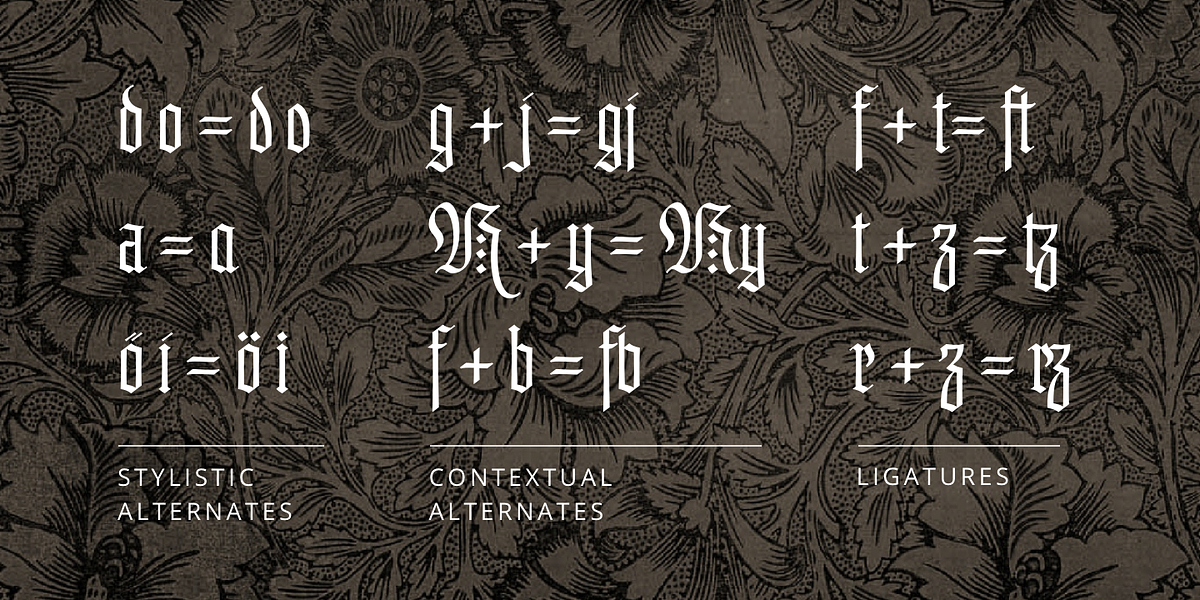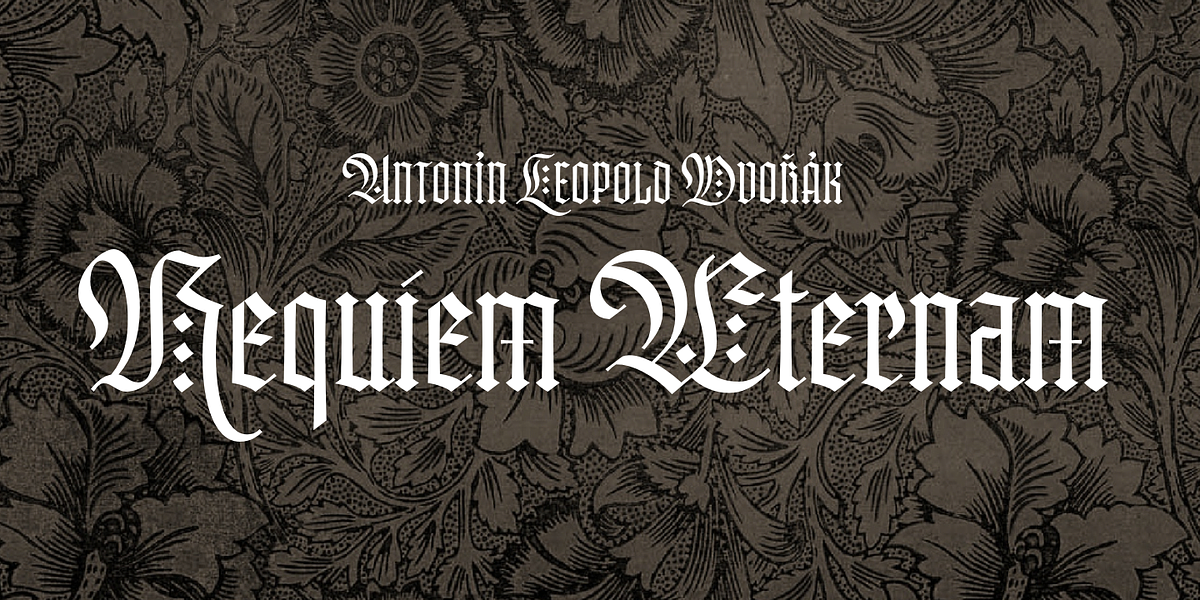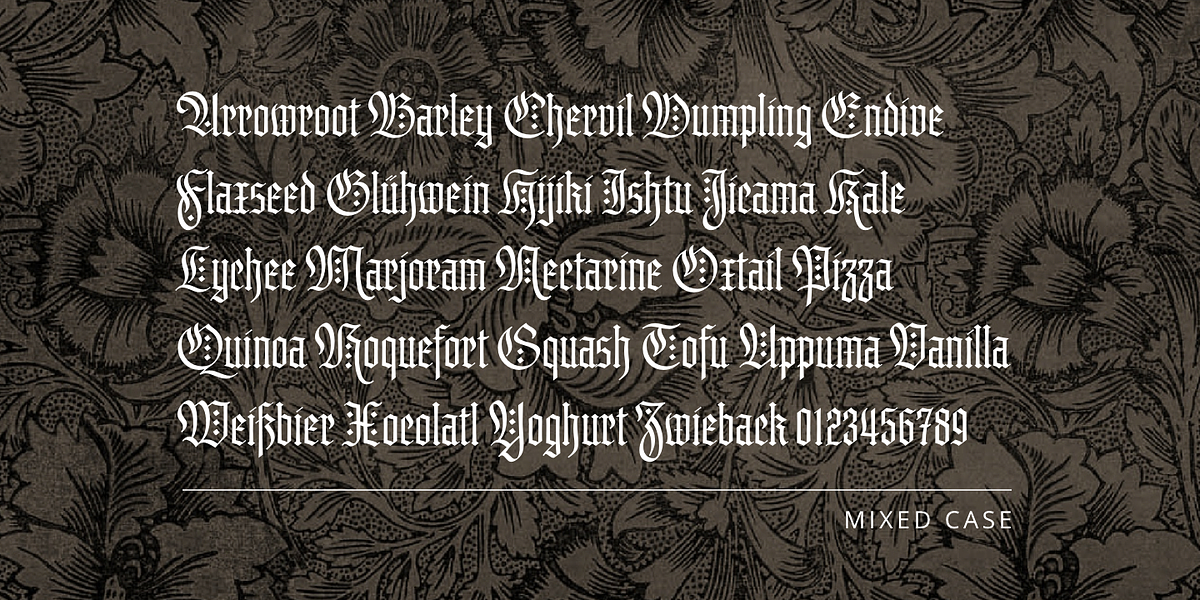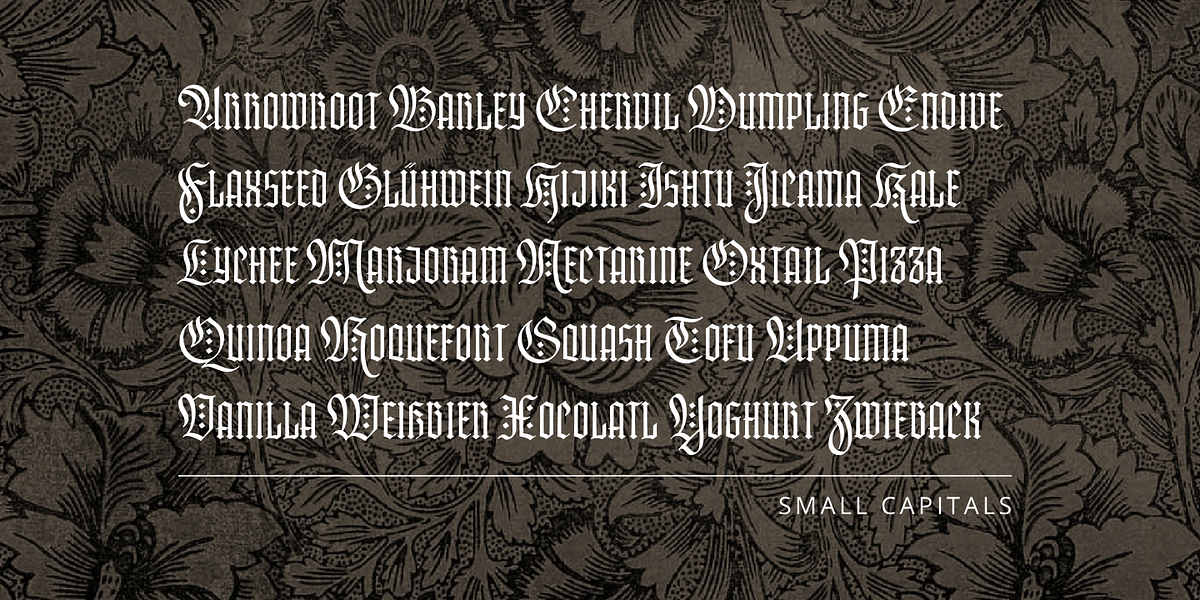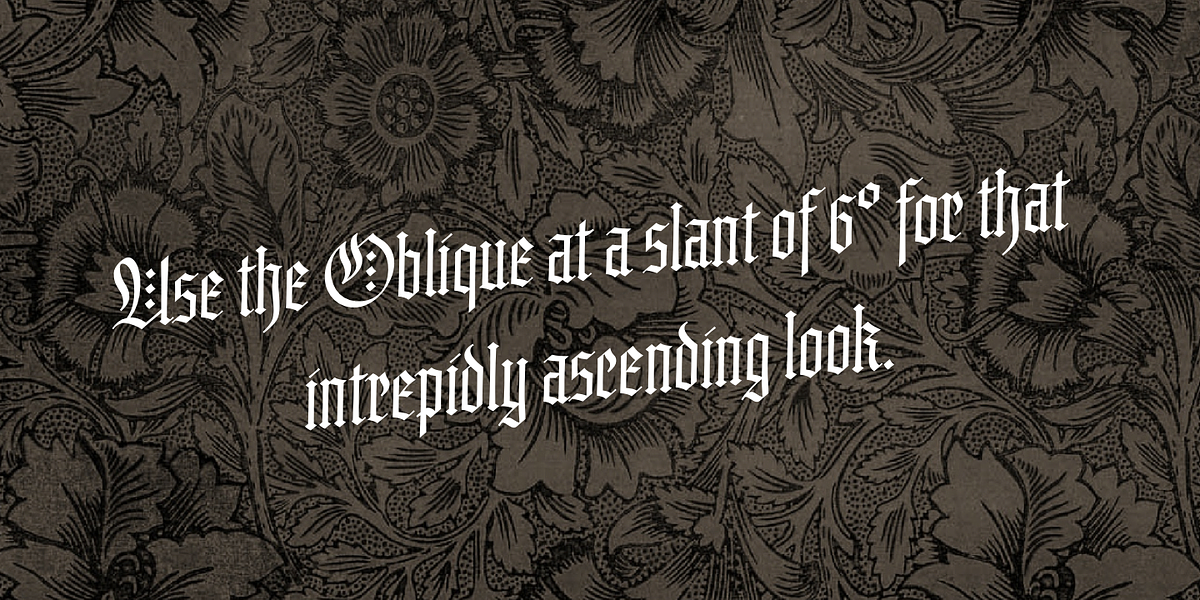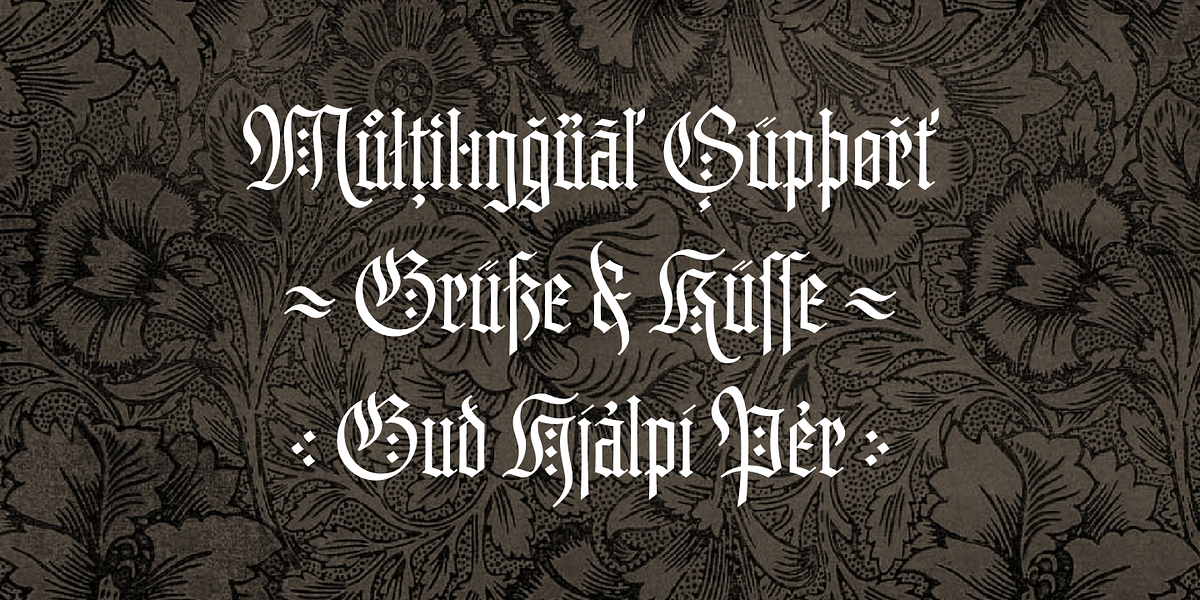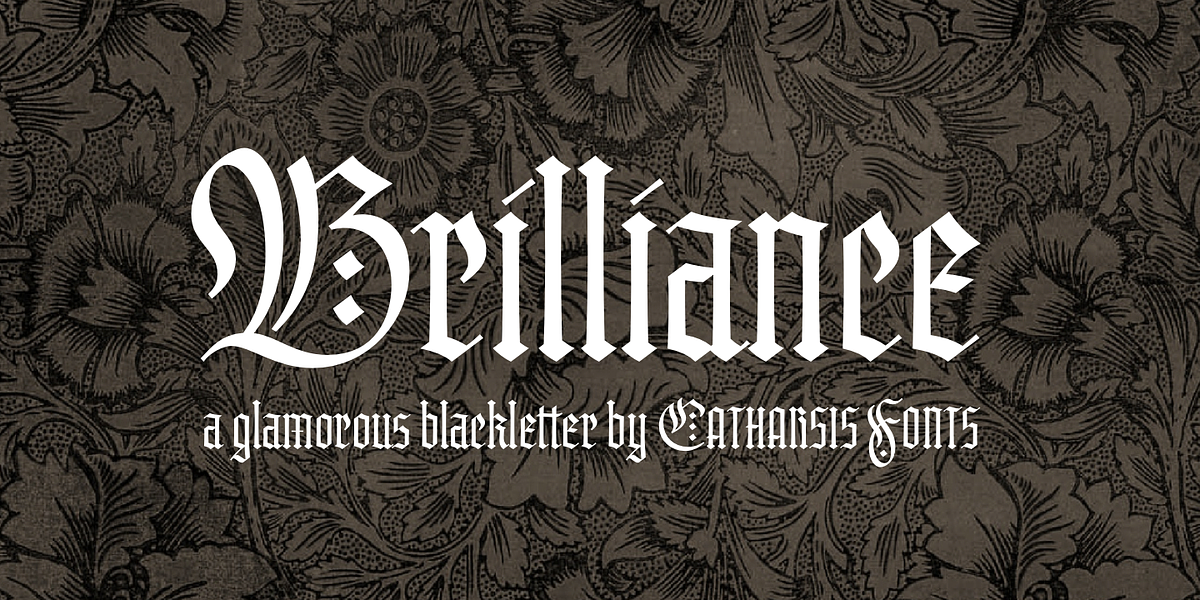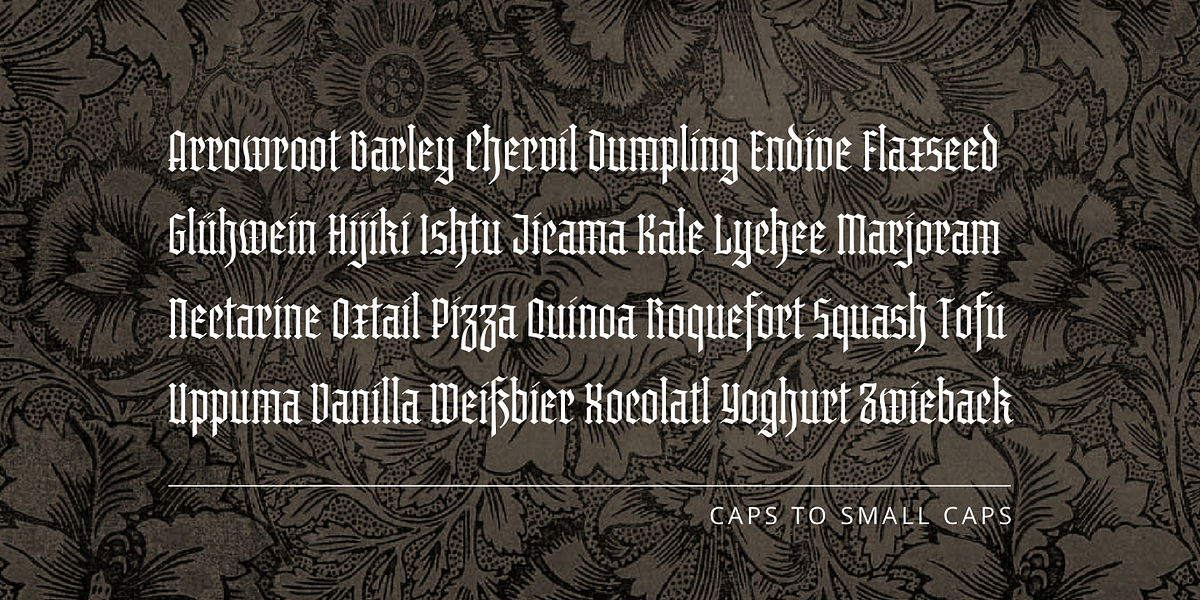
Brilliance
Brilliance is a contemporary blackletter font designed for display purposes. It features swashy capitals and crisp lowercase letters, along with a set of unique small capitals inspired by condensed Roman letter shapes. These small capitals can be used to create highly condensed titling styles or compact text styles. The font includes extensive language support, ligatures, contextual alternates, stylistic alternates, and careful spacing and kerning.